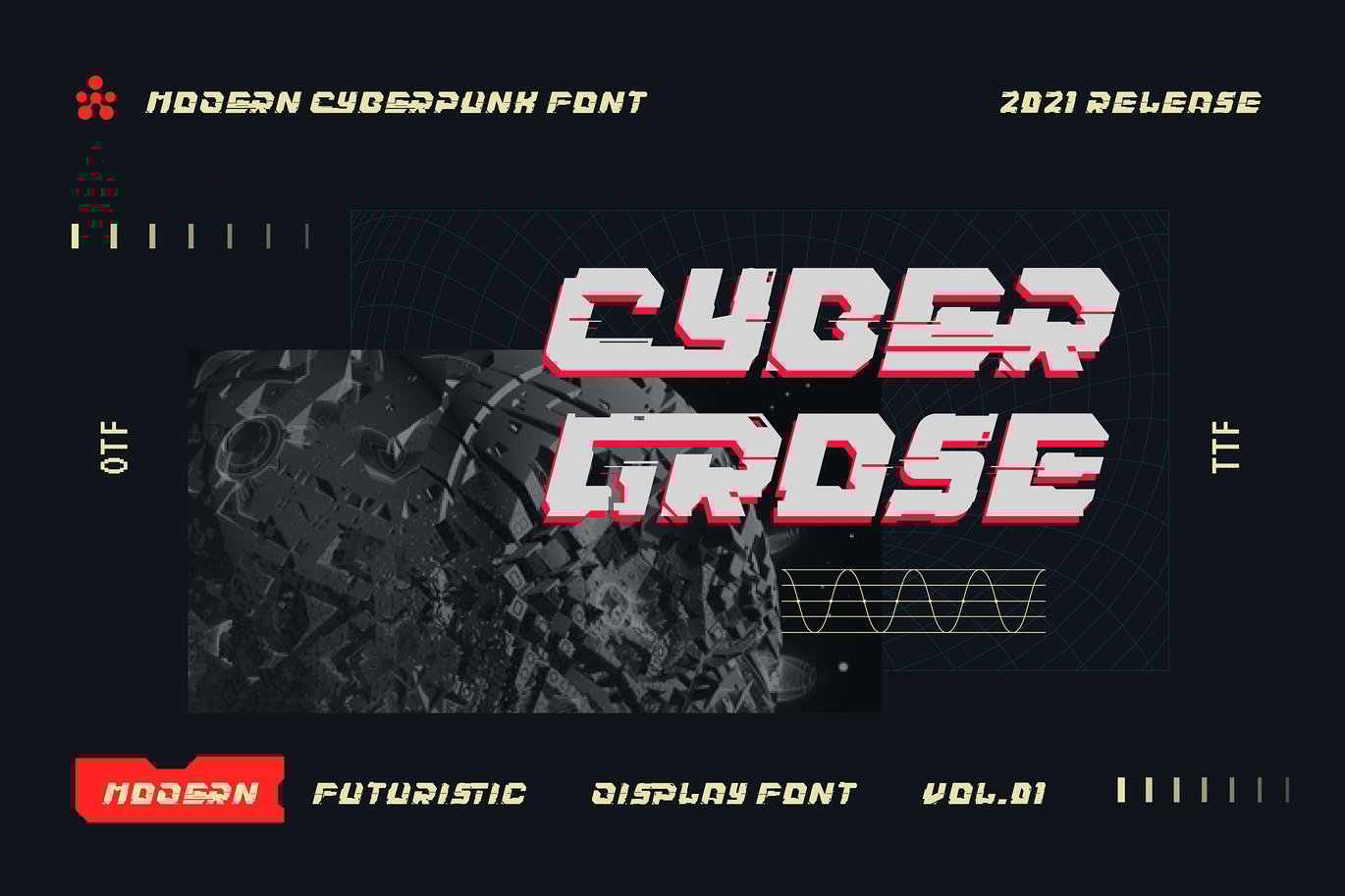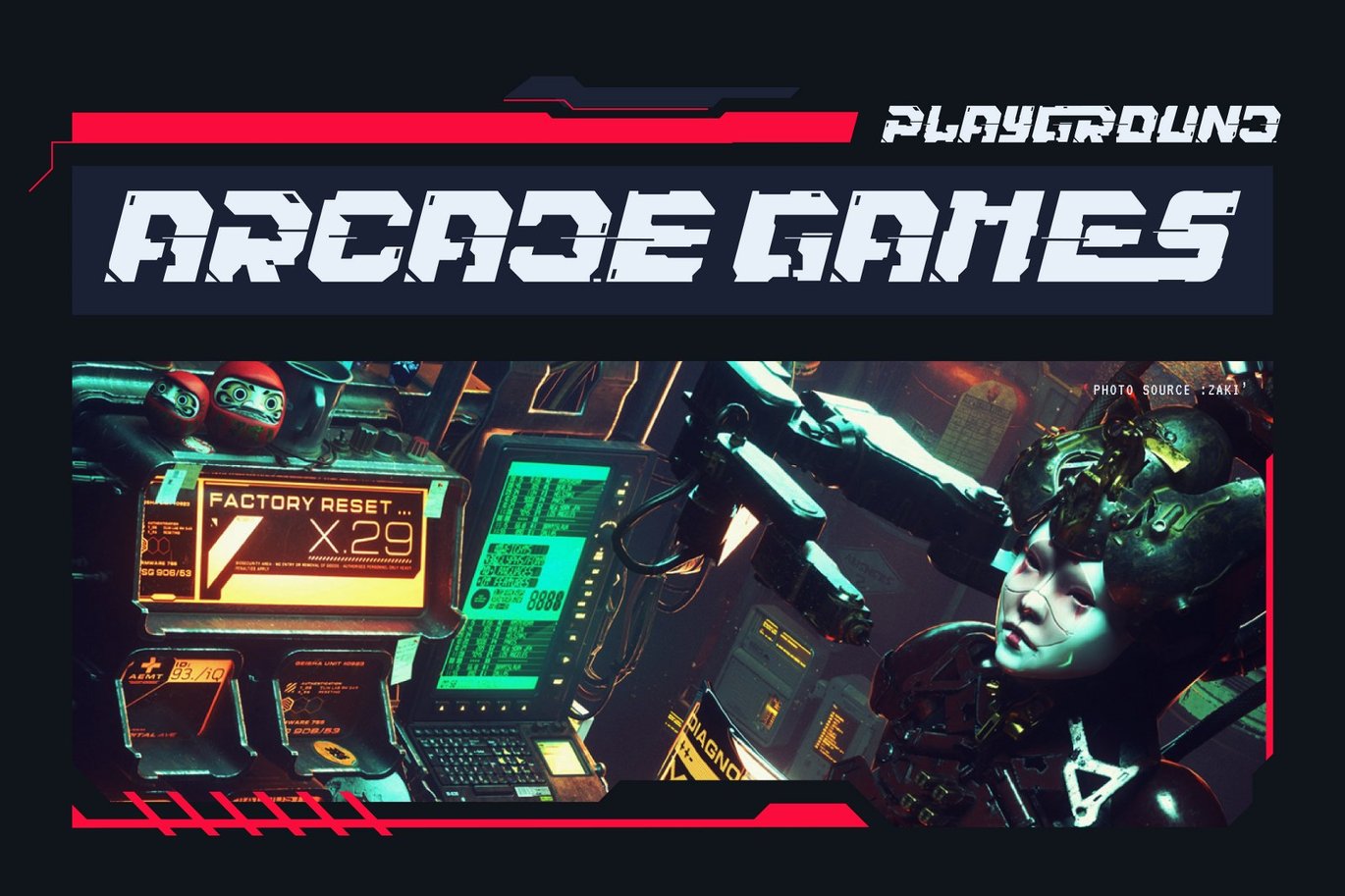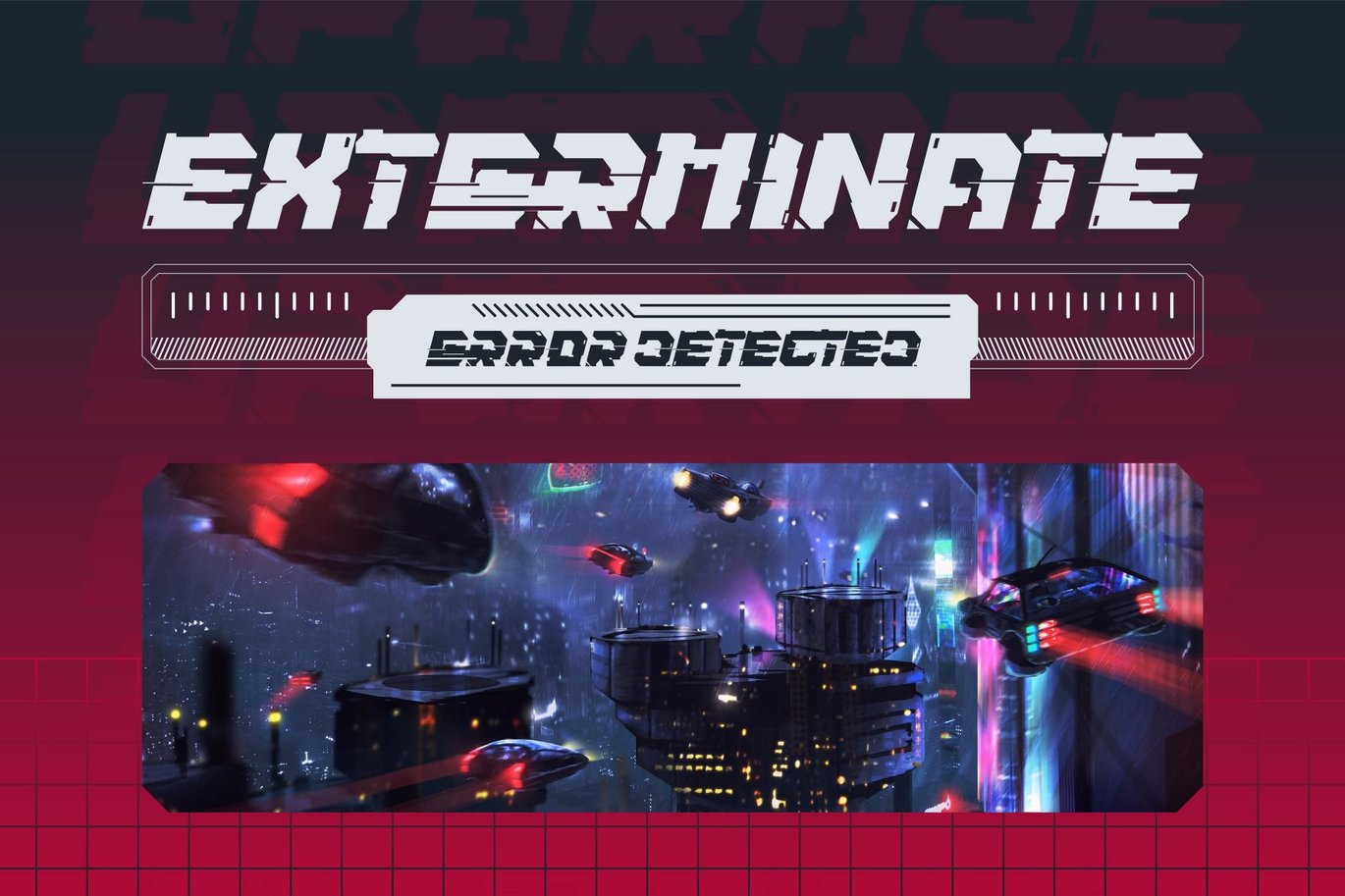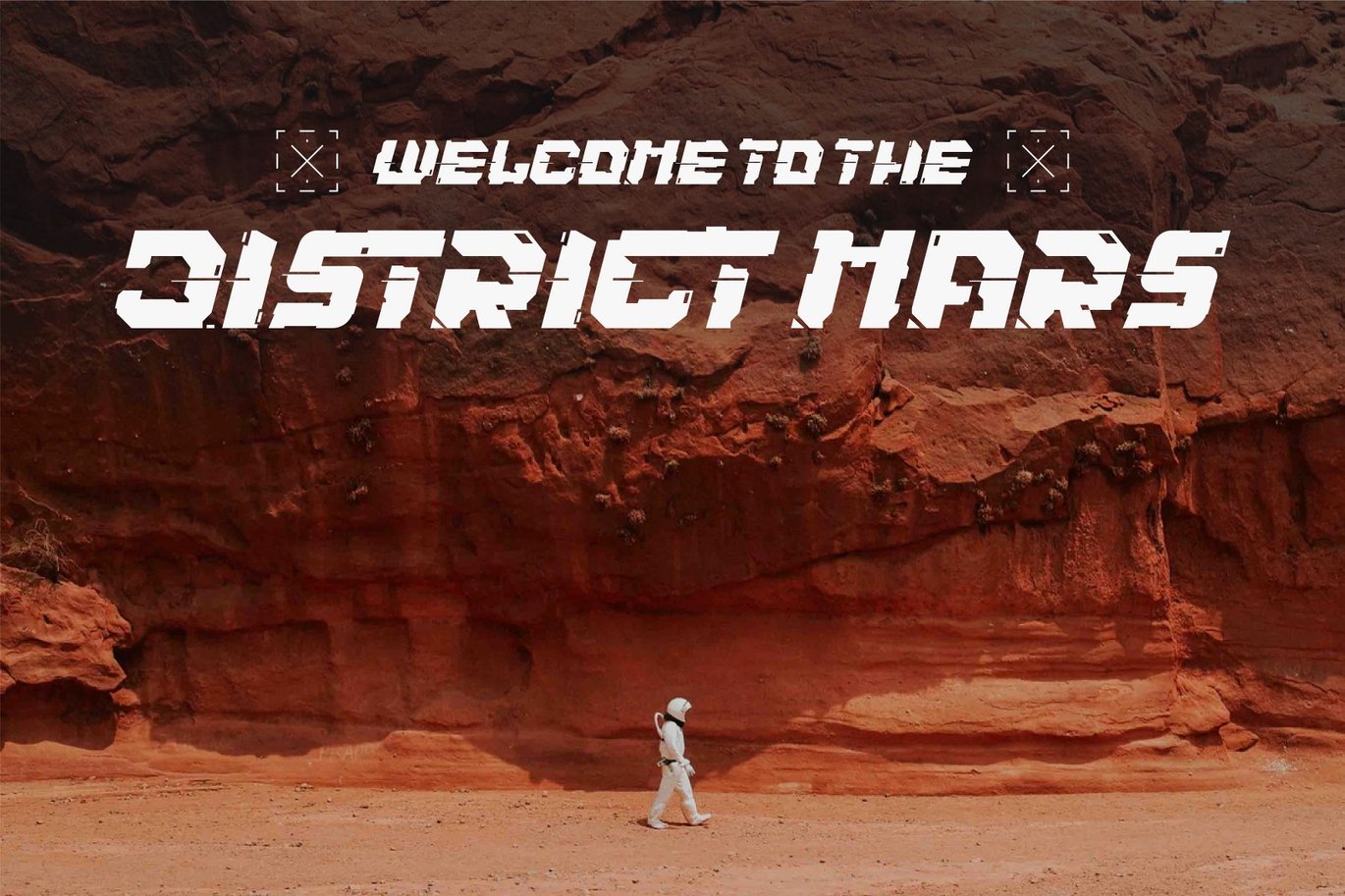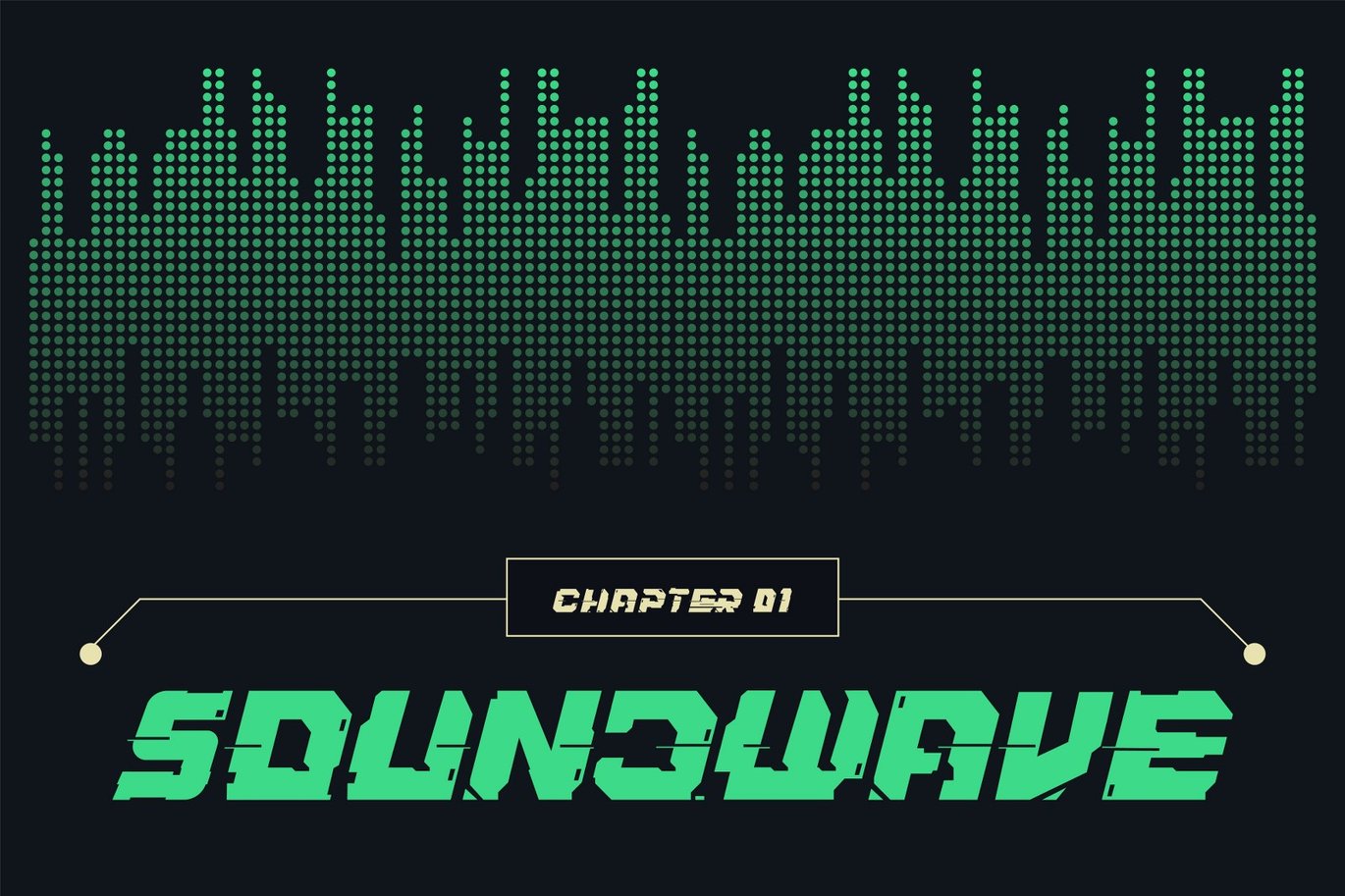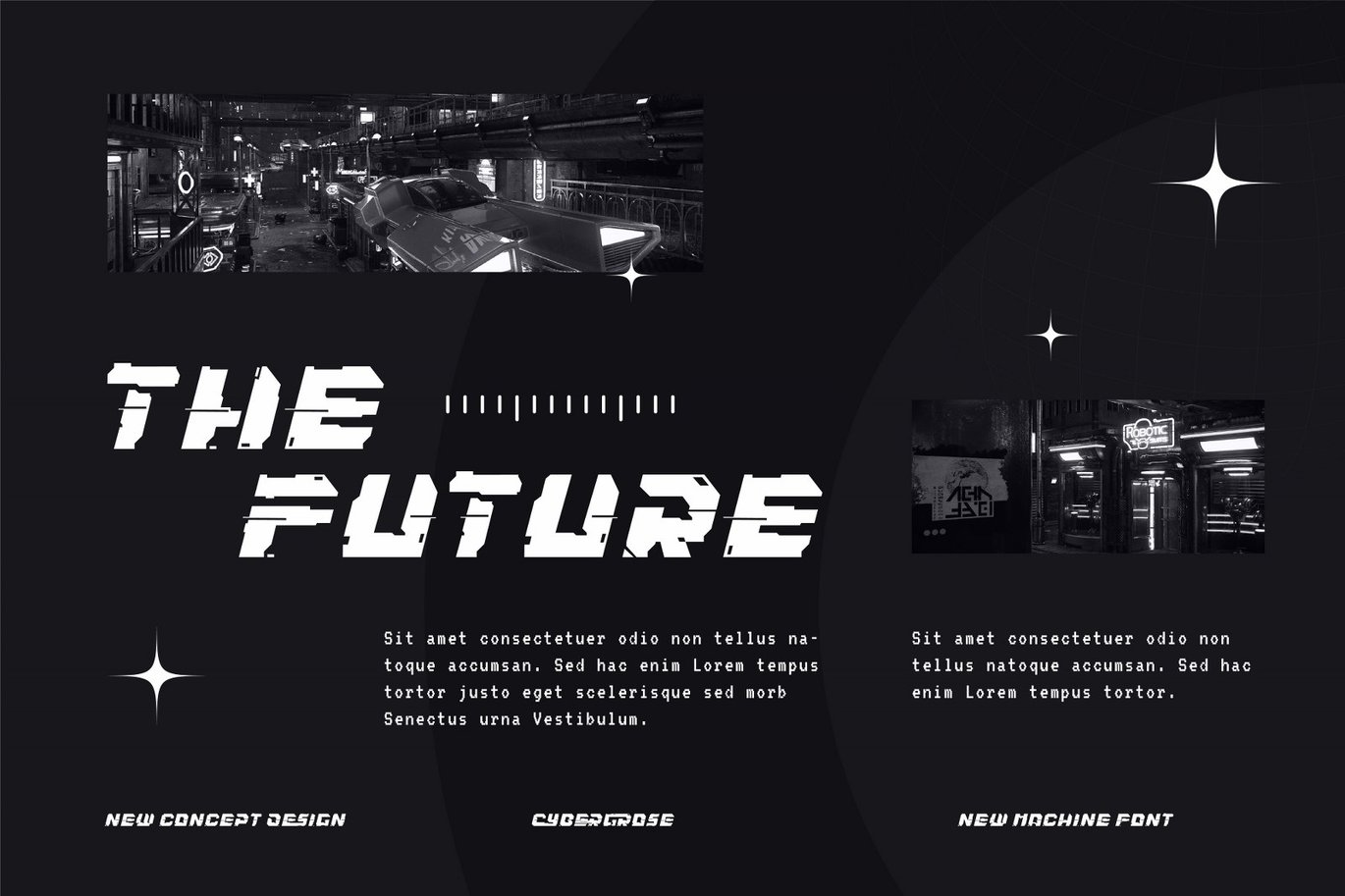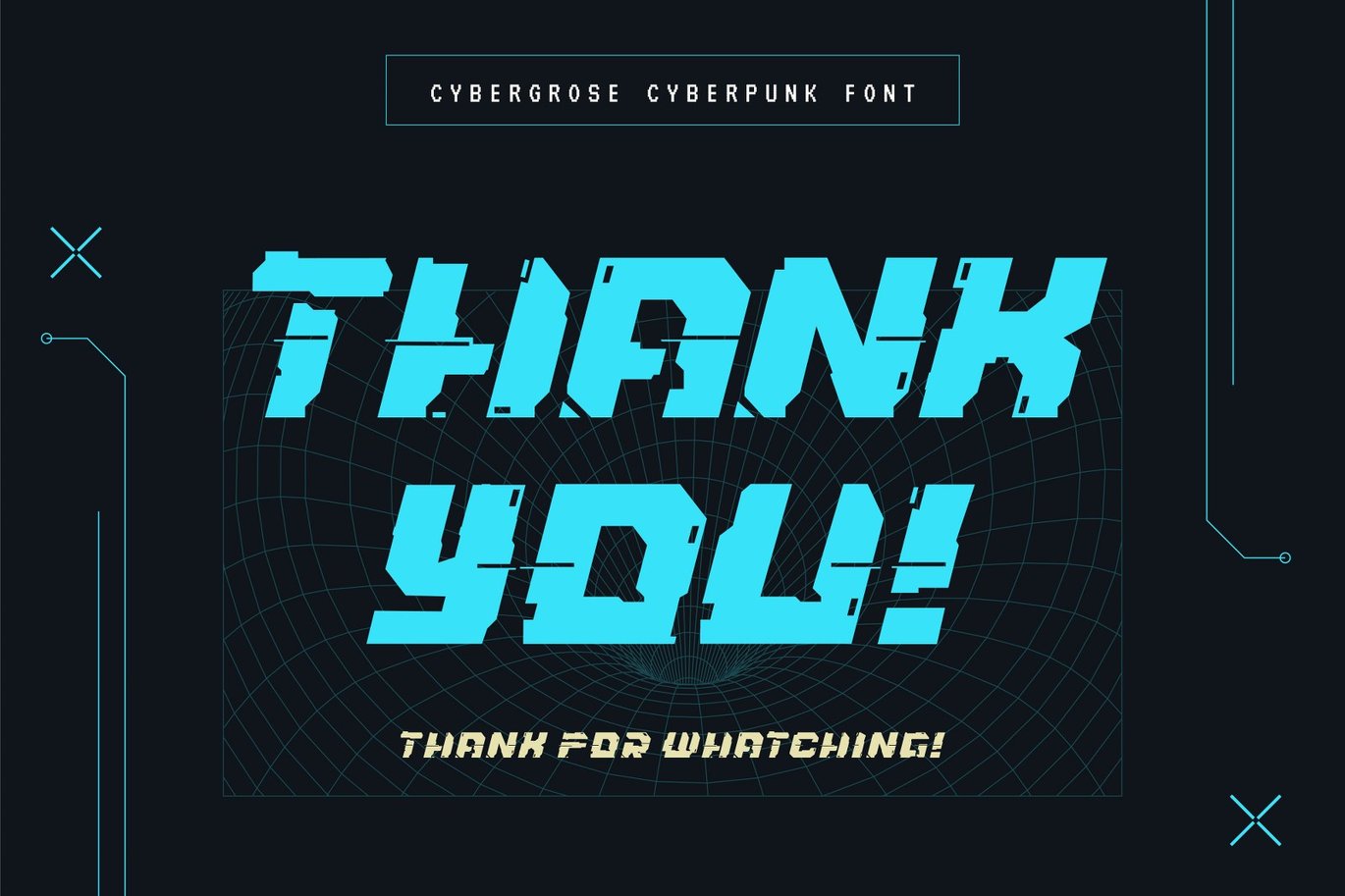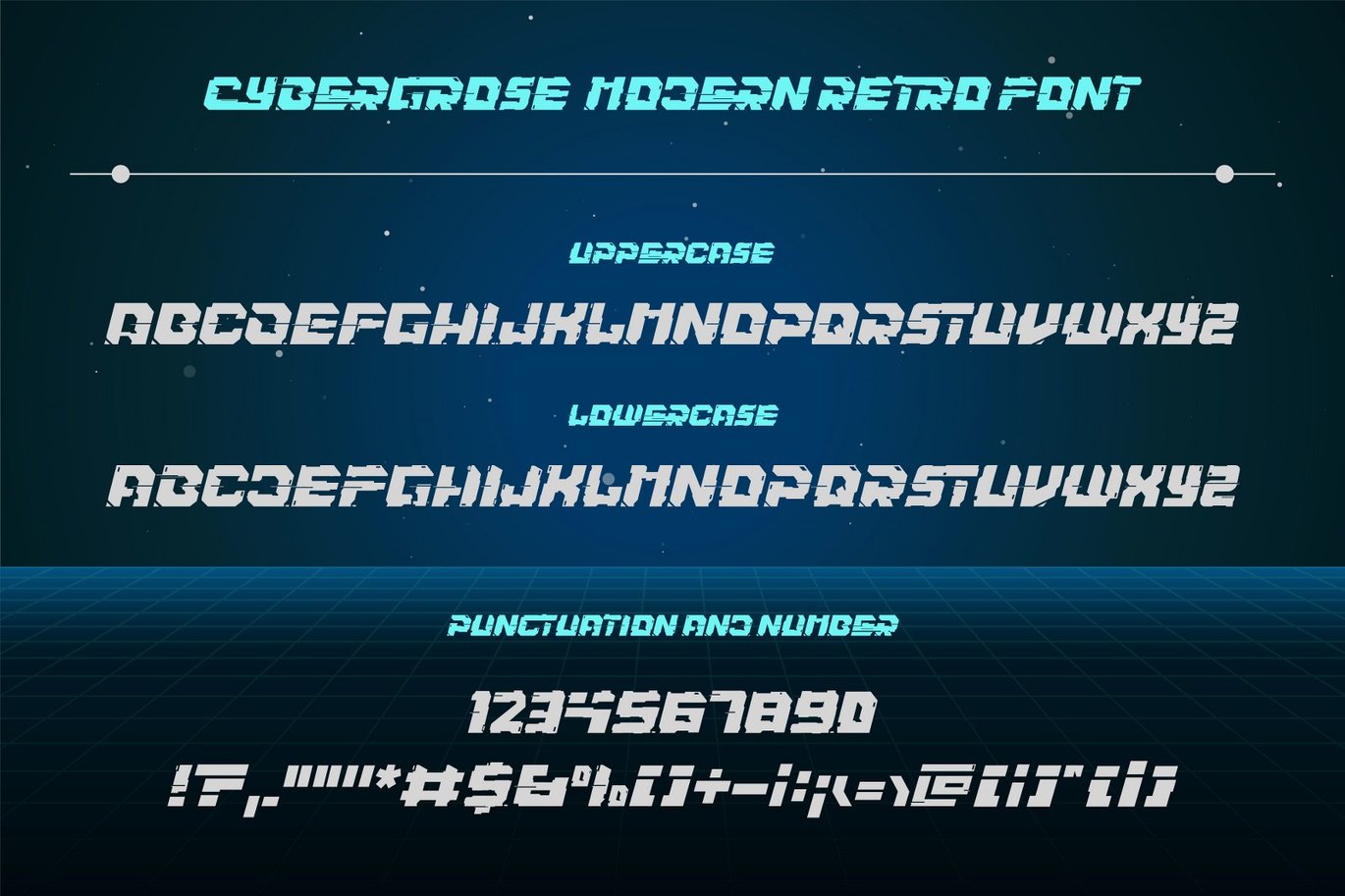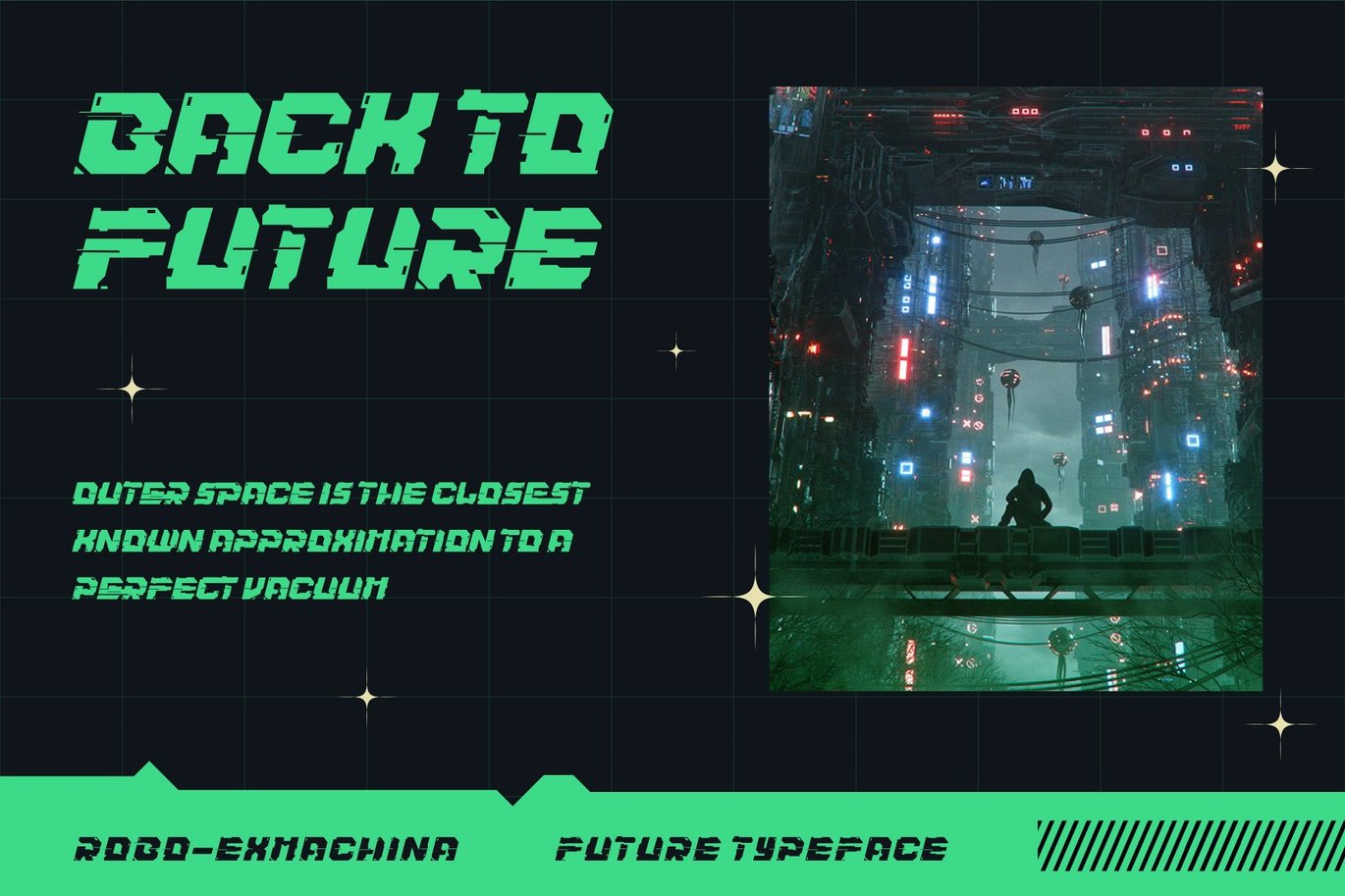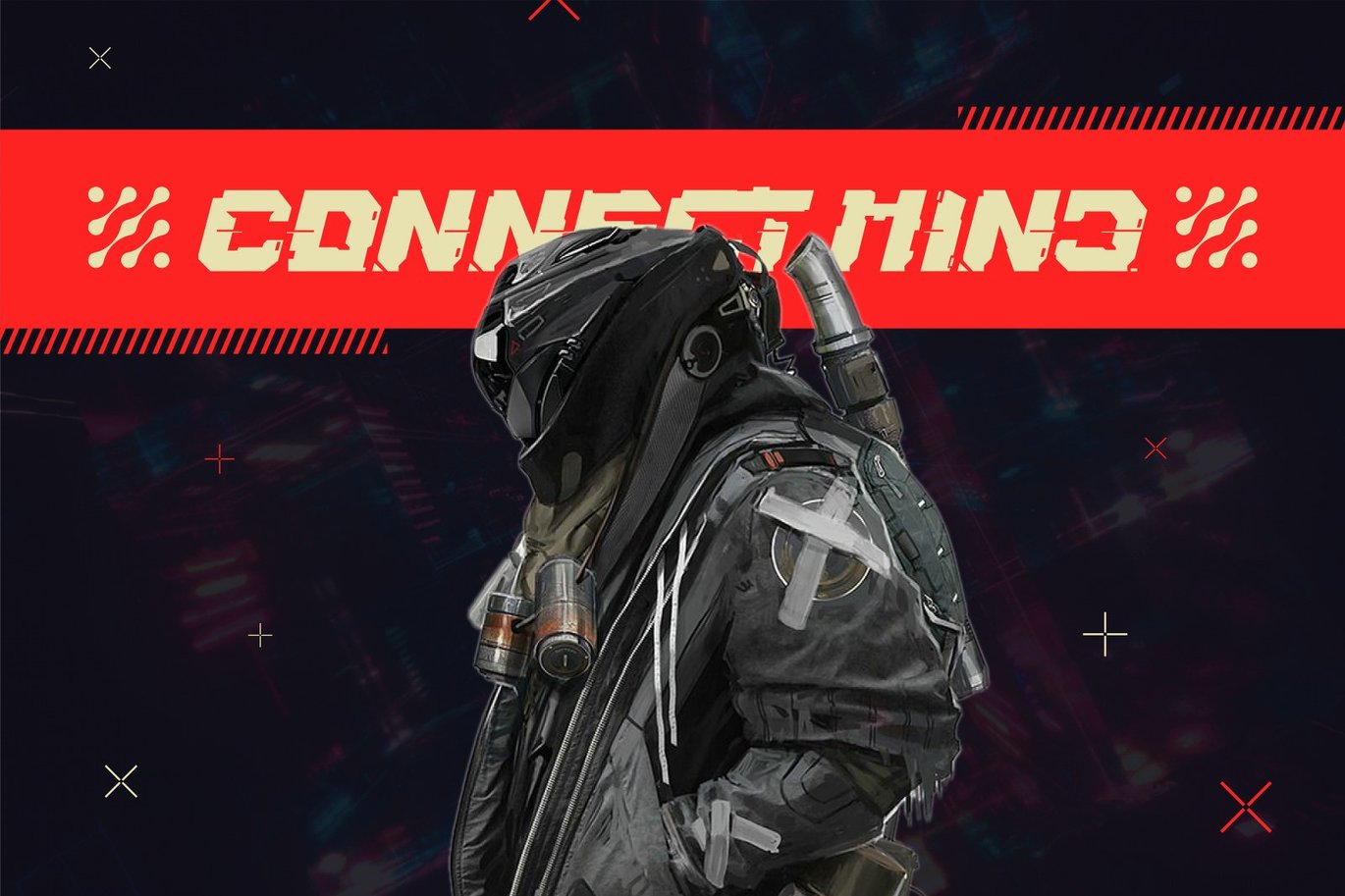
Cyberpunk Display Font
Unleash the future with Cyberpunk Display Font, a bold and electrifying typeface inspired by neon-lit cityscapes and futuristic dystopias. Designed for sci-fi enthusiasts, tech brands, game developers, and digital artists, this font brings a high-tech, glitchy, and edgy aesthetic to your projects. Whether you’re working on cyberpunk posters, gaming interfaces, futuristic branding, or synthwave album covers, this typeface delivers a powerful and immersive experience.
Perfect for creating futuristic UI designs, dystopian sci-fi book covers, hacker aesthetics, esports branding, tech startups, movie title sequences, and cyber-inspired fashion branding.
Perfect for:
Cyberpunk Movie Posters, Sci-Fi Book Covers, Gaming UI & HUDs, Futuristic Branding, Tech Startup Logos, Synthwave Album Covers, Esports & Streaming Overlays, VR & AR Interfaces, Neon Sign Designs, Hacker & Glitch Aesthetics, NFT & Metaverse Graphics, Cyber Security Awareness Campaigns, AI & Robotics Branding, Space-Themed Advertising, High-Tech Fashion Editorials.
Use Cases:
Logo Design, Branding & Identity, UI/UX Design, Gaming Graphics, Poster Design, Album Artwork, Motion Graphics, Social Media Visuals, NFT Art & Collectibles, Tech & Startup Pitch Decks, Web & App Design, Science Fiction Publications, Esports Streaming Overlays, Cyber-Themed Advertising, Futuristic Packaging Design.